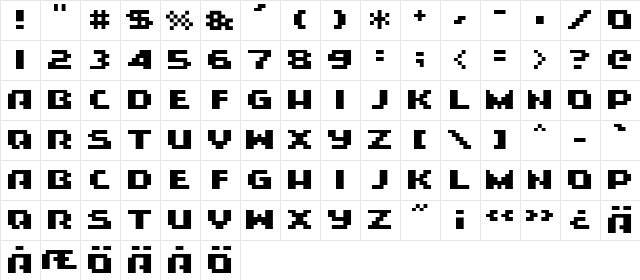
ROTORbonk Regular
Design Context for ROTORbonk Typeface
ROTORbonk takes a measured approach to typography — its balanced proportions and neutral character make it a reliable workhorse for both digital and print work.
Pro Tip: Use ROTORbonk in both headline and body roles to test its range before committing to a single application.